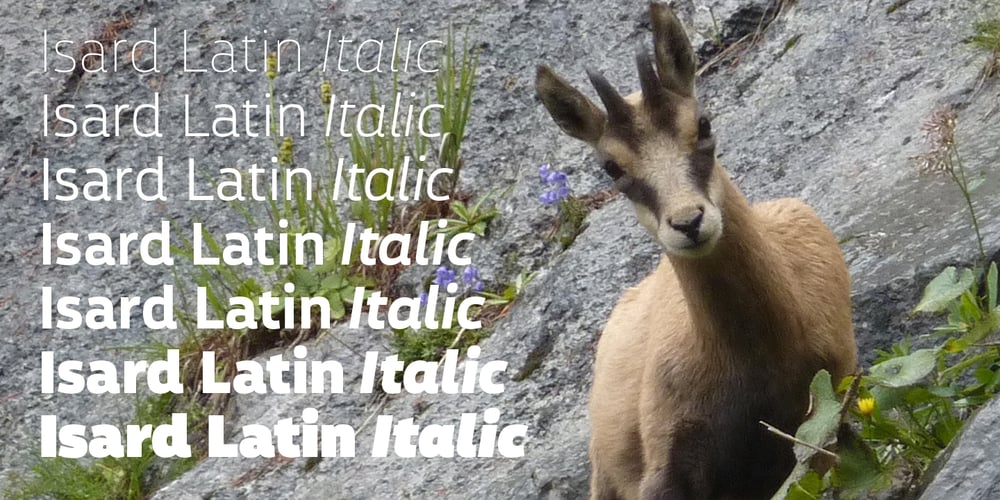
Isard
Isard Font Family was designed by Pilar Cano, Ferran Milan and published by Letterjuice. Isard contains 14 styles and family package options. Isard is a very agile typeface, honoring its name, which is the name of a type of mountain goat from the Catalan Pyrenees. It is a multipurpose sans serif typeface with a down-to-earht elegance, thought for information design as well as branding.Isard is warm and friendly which also makes it suitable for advertising, packaging, and magazine. It has a contemporary feel to it with its squarish curves, it has being built with legibility in mind, bearing a considerably large x-height. The family covers two scripts, Hebrew and Latin. It has seven weights, from the very sturdy Black to the delicacy of the Thin, with its italics.